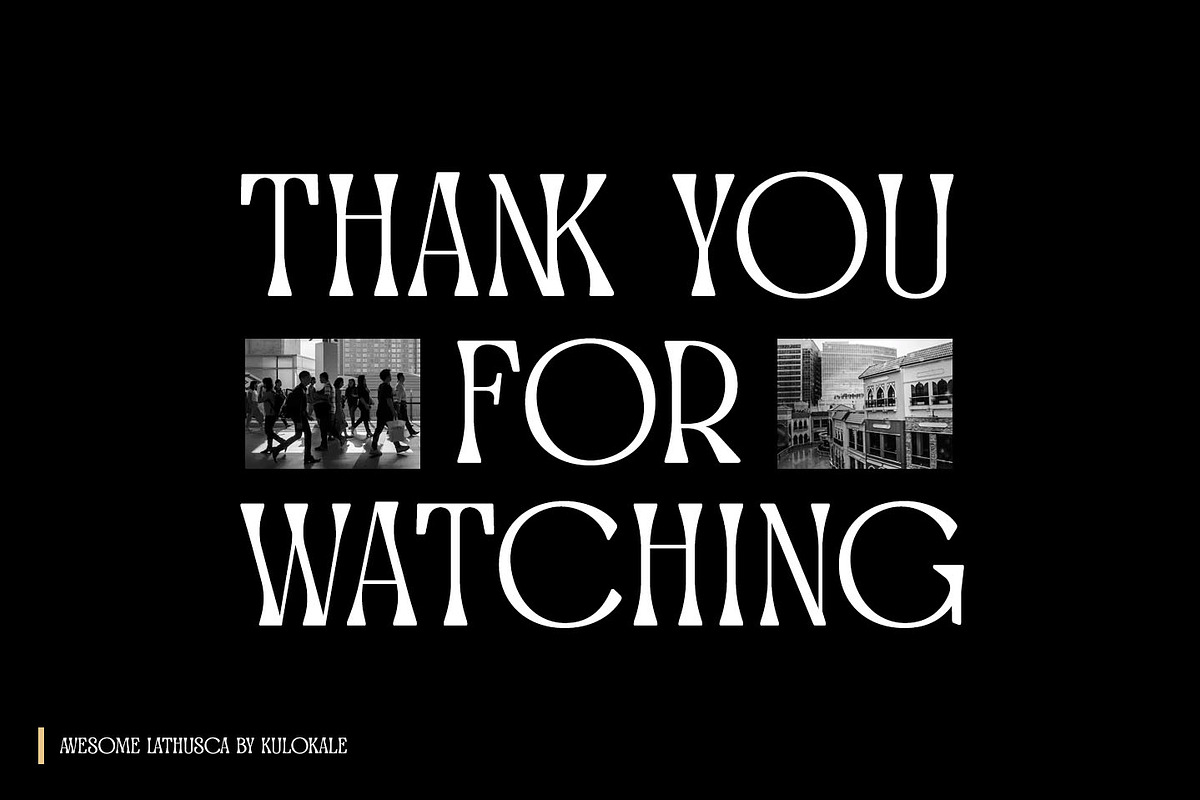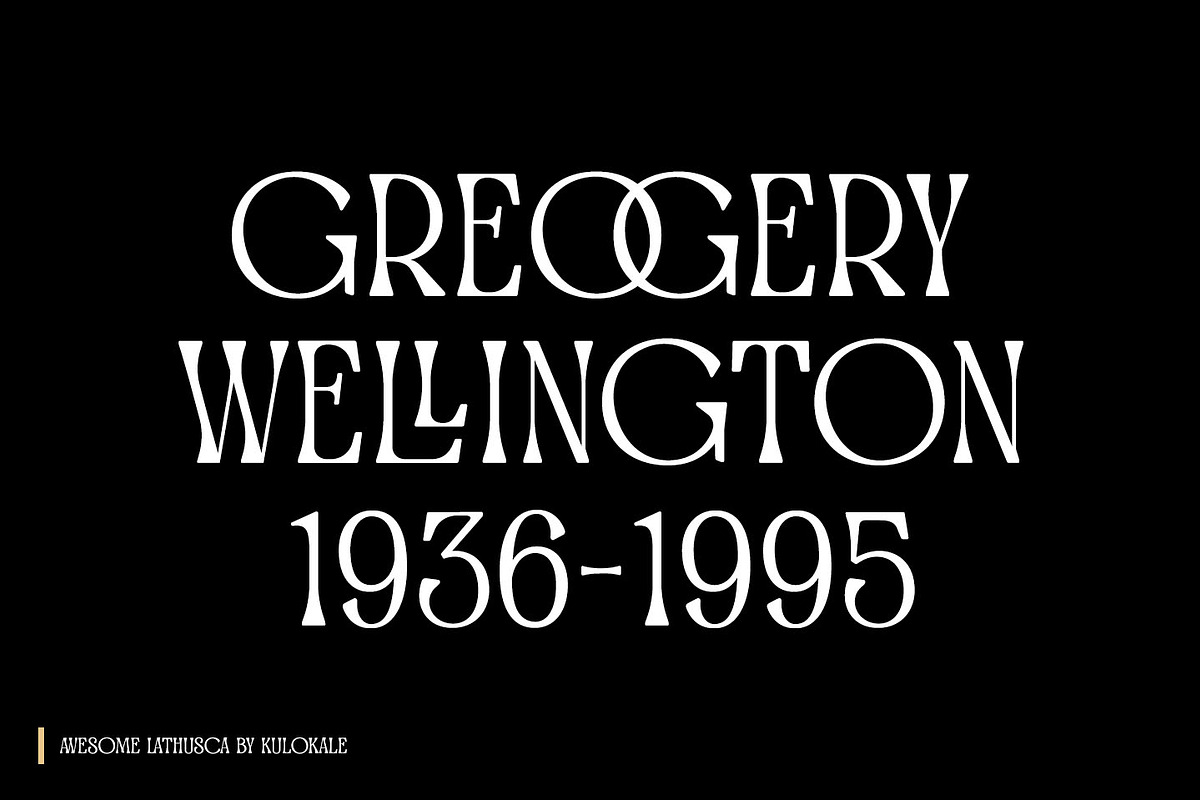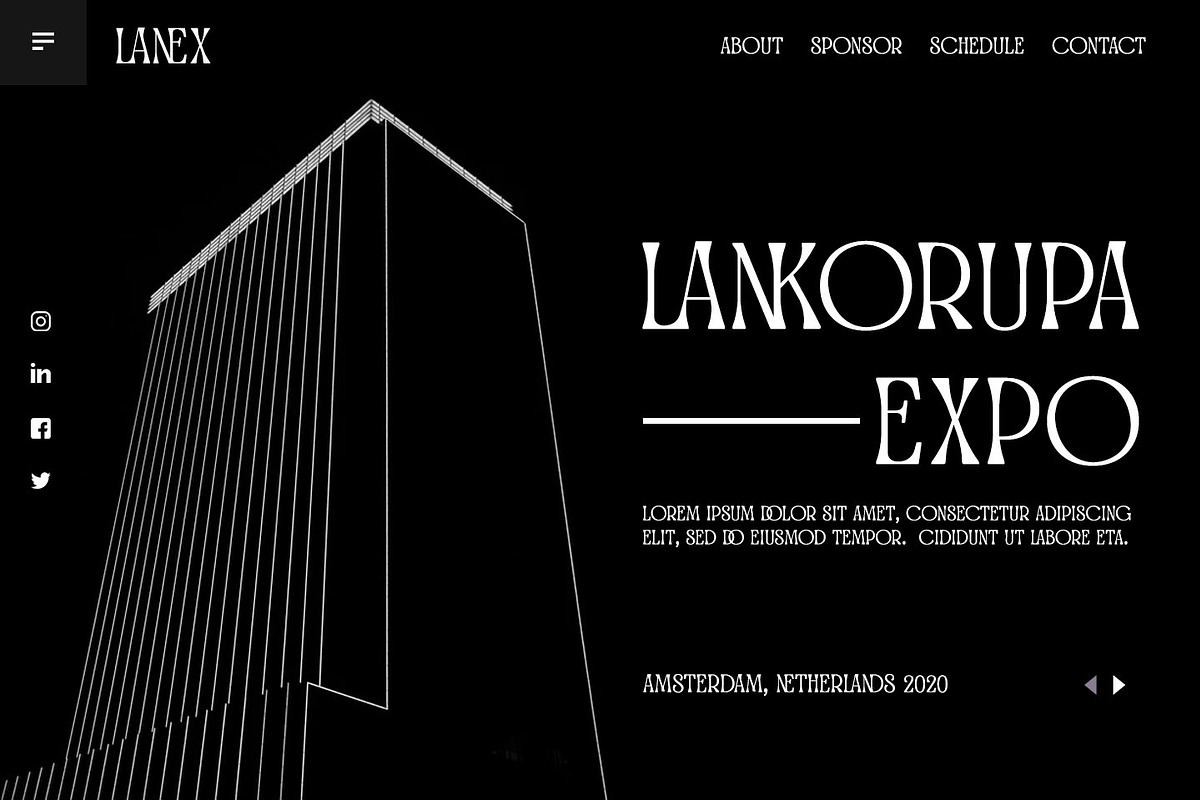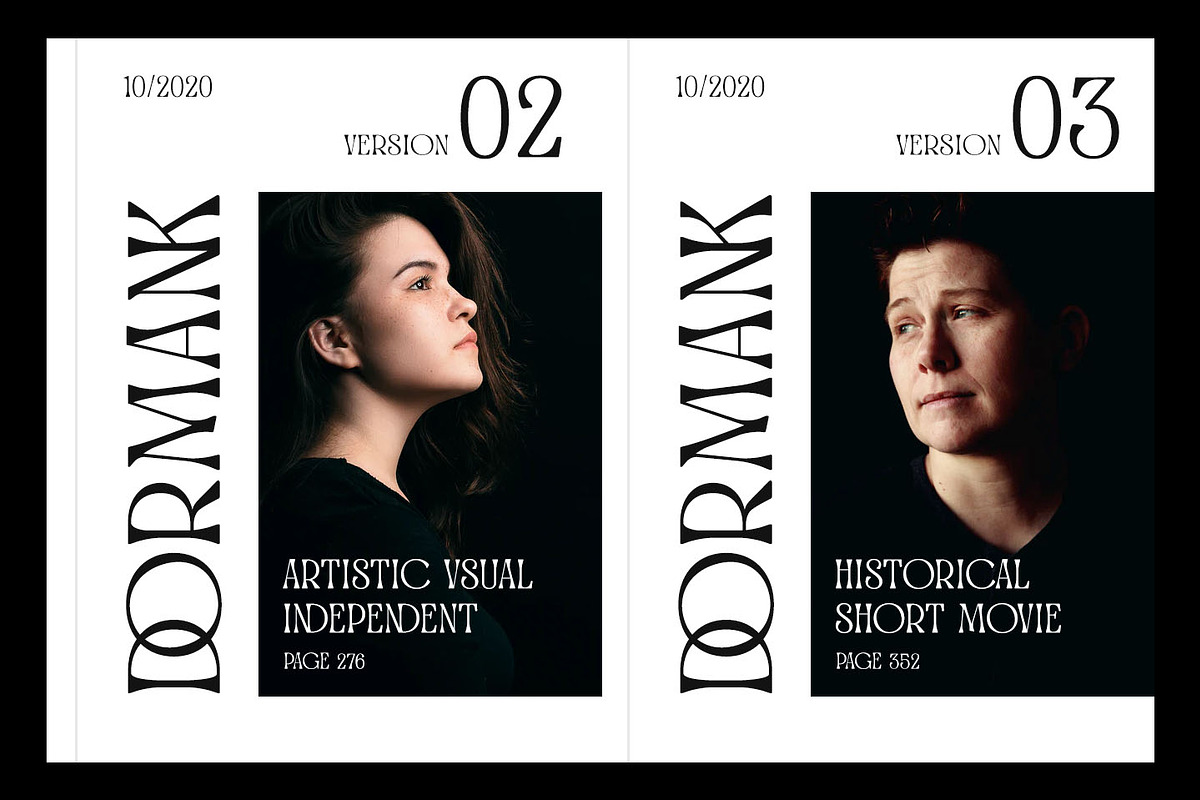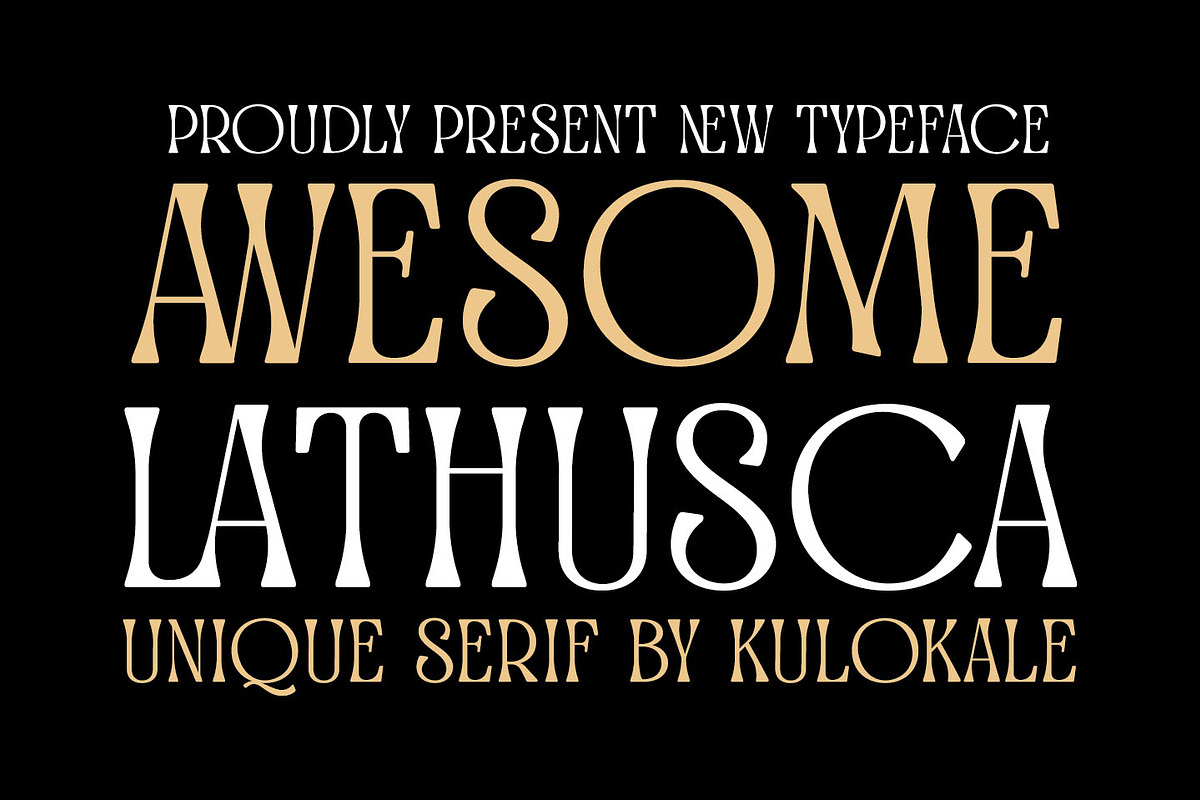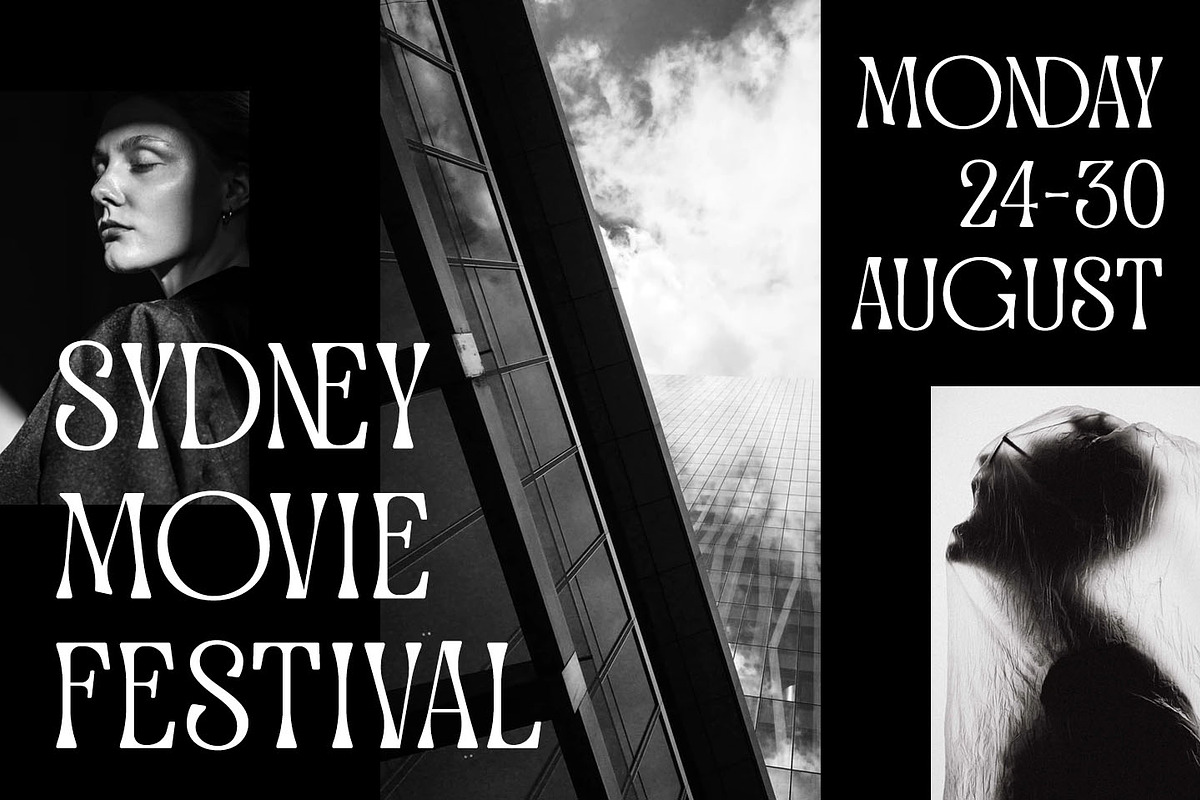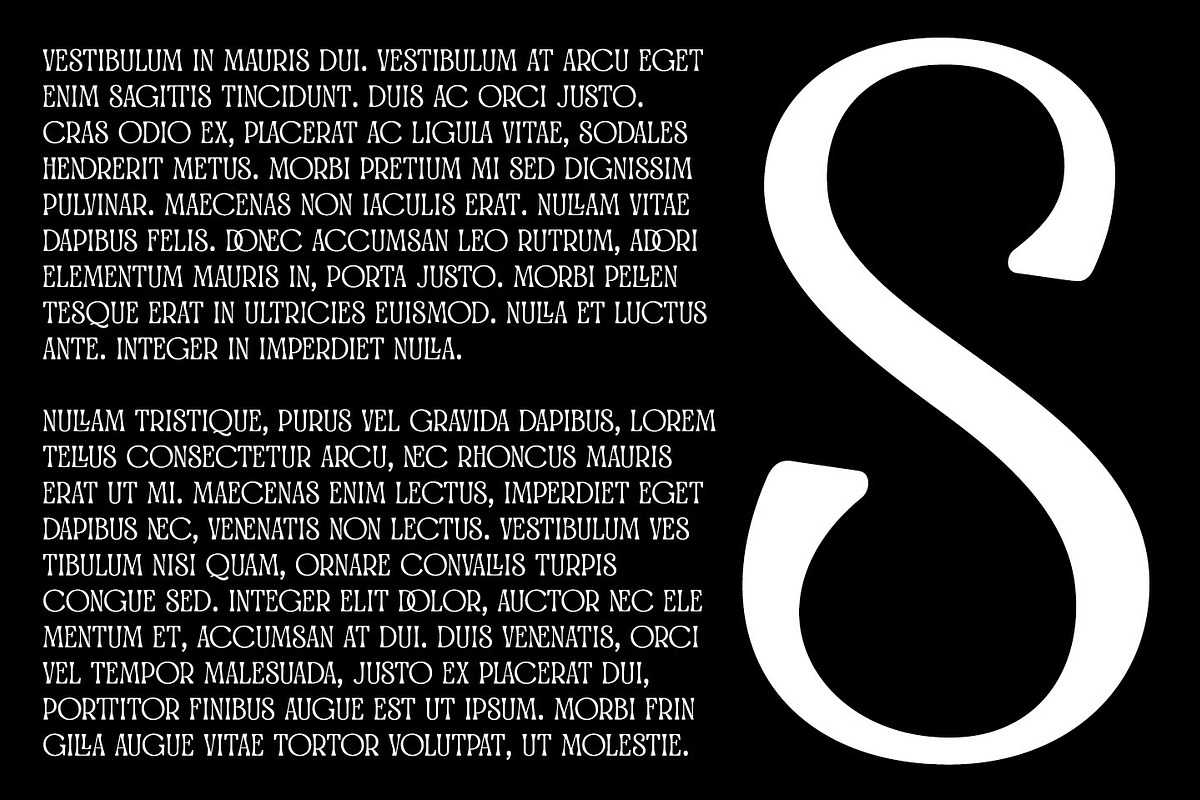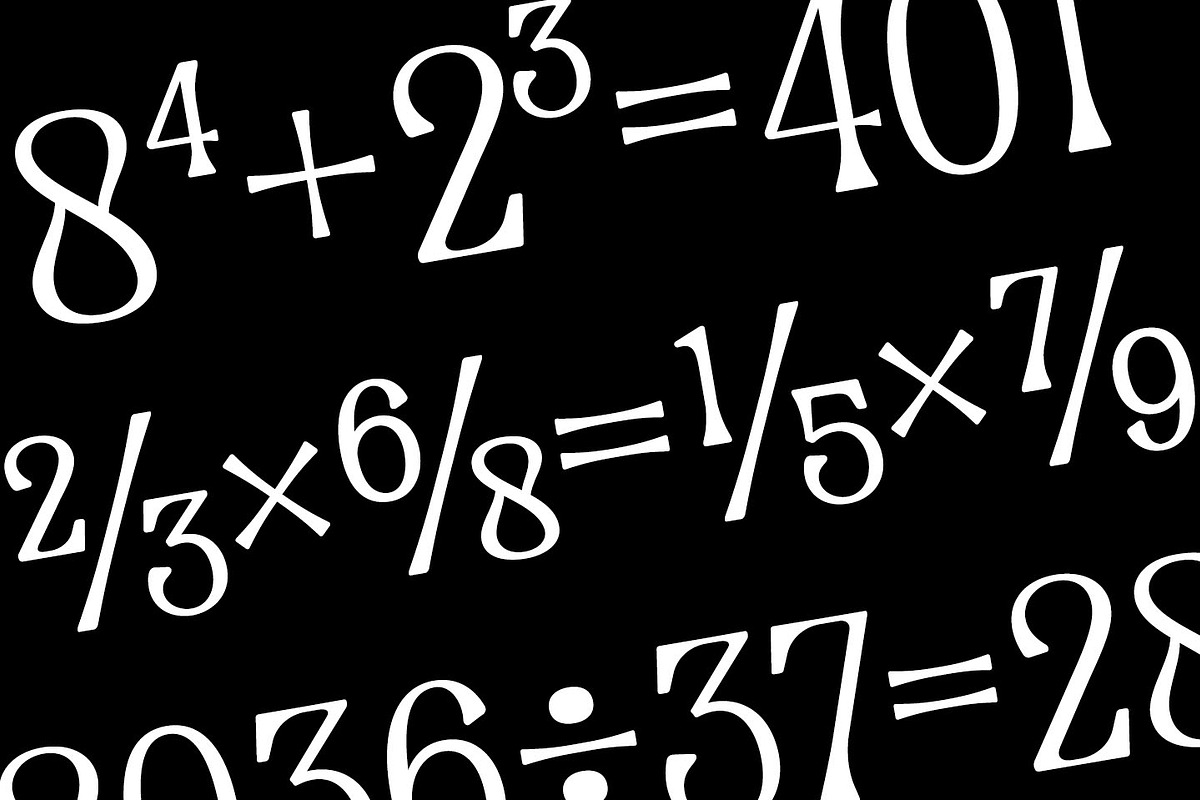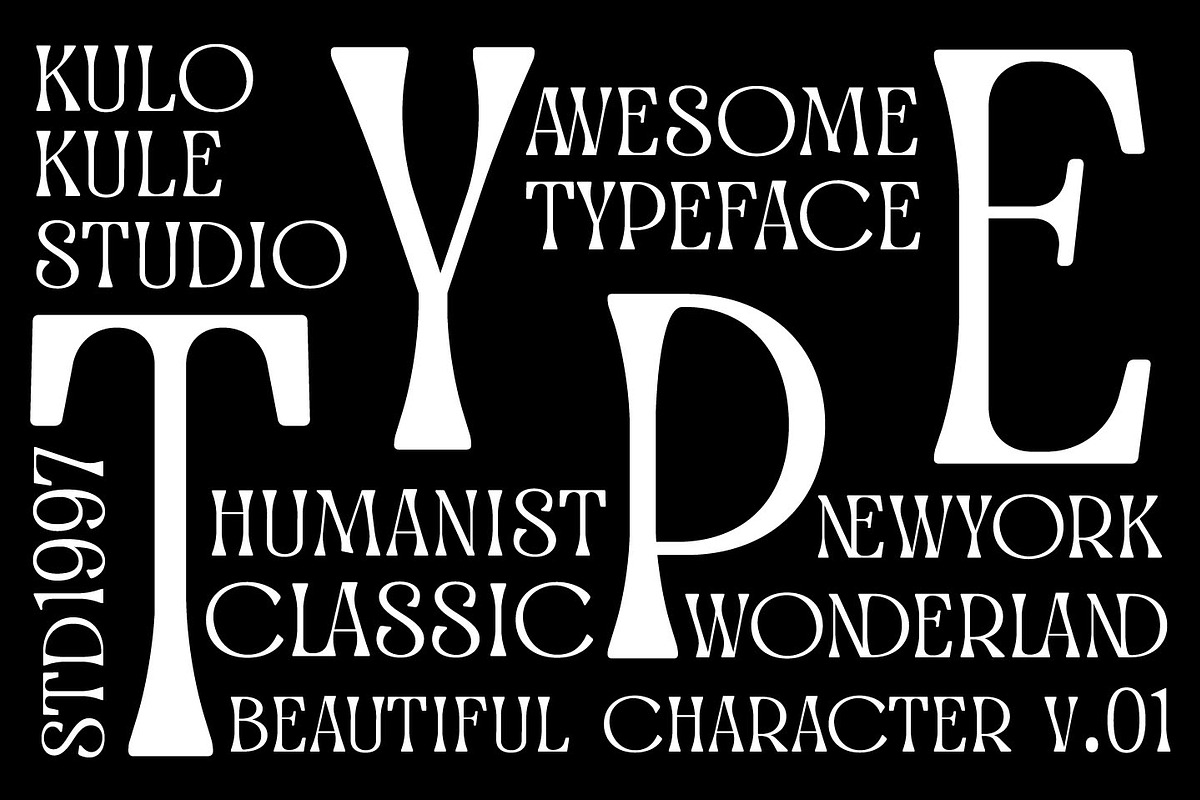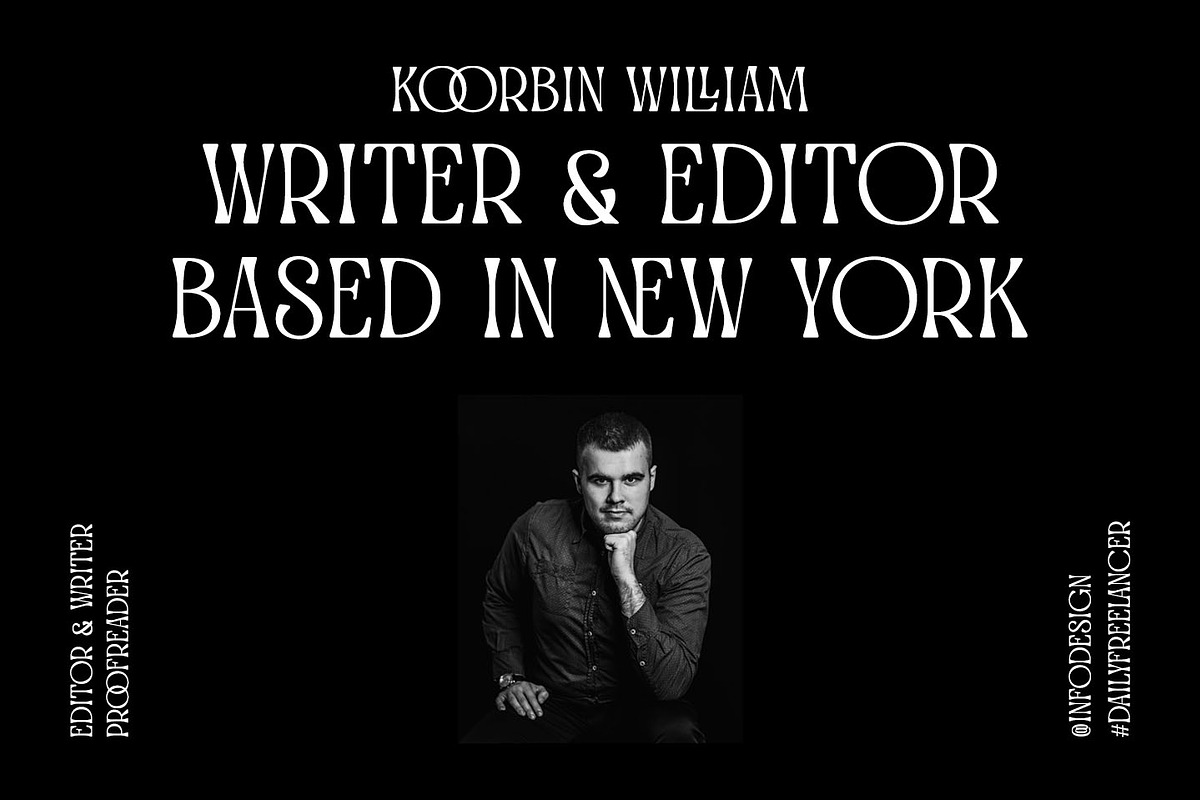
Awesome Lathusca - Unique Serif
Awesome Lathusca is a unique and stylish serif font. Awesome Lathusca is well-suited for advertising, branding, logotypes, packaging, titles, headlines and editorial design.
- Awesome Lathusca includes Capital and Lowercase letters, Alternates, and Ligatures
- Numbers + punctuation
- Foreign language support